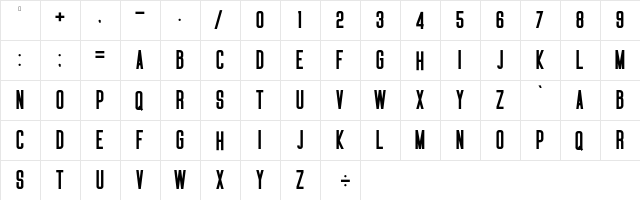
SOLUTION Regular
Design Context for SOLUTION Typeface
SOLUTION is a composed and adaptable typeface that performs quietly and consistently across a wide range of design contexts.